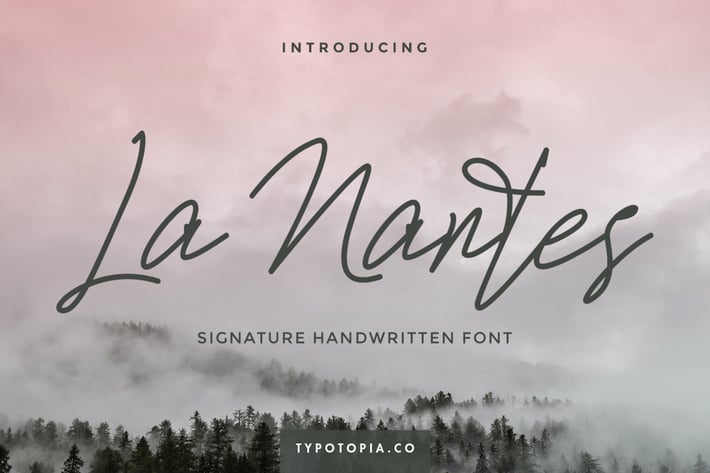
La Nantes Handwritting Signature Font
Introducing La Nantes Handwritting Signature Font. This perfect for the purposes of designing templates, brochures, videos, advertising branding, logos and more.